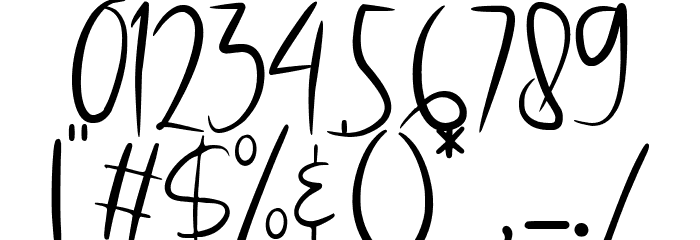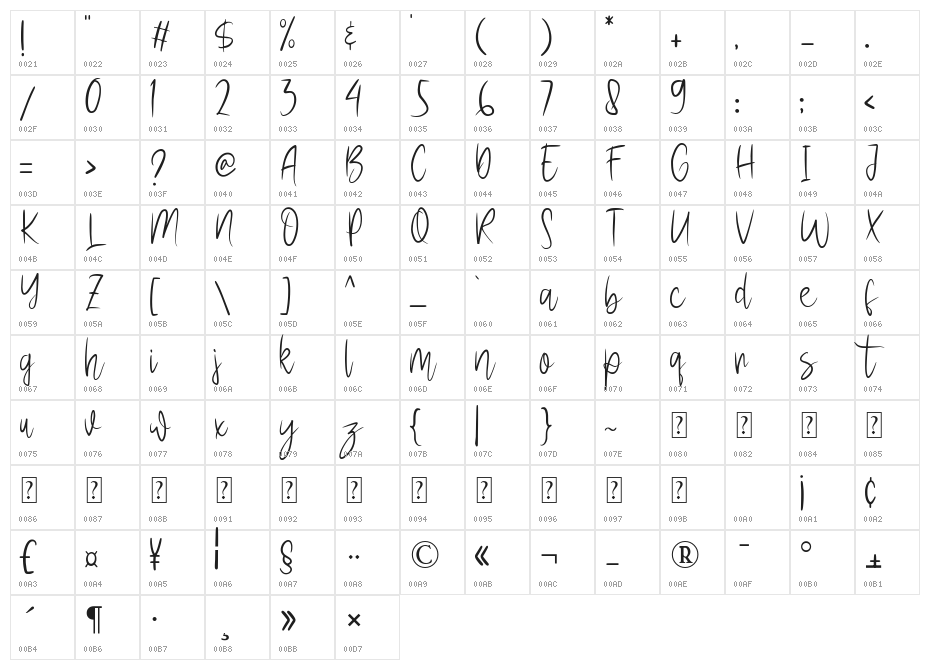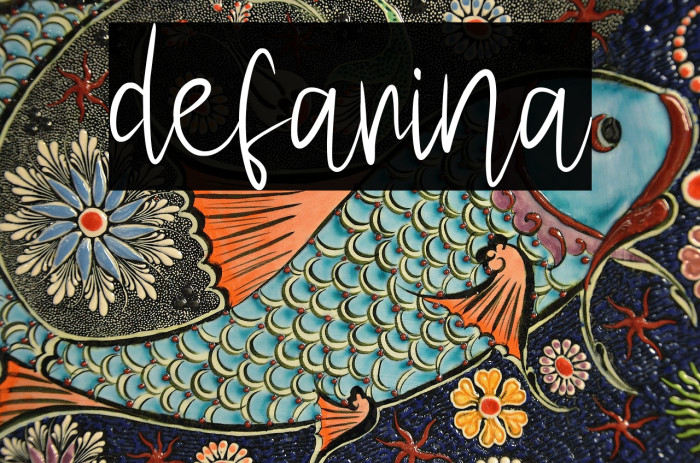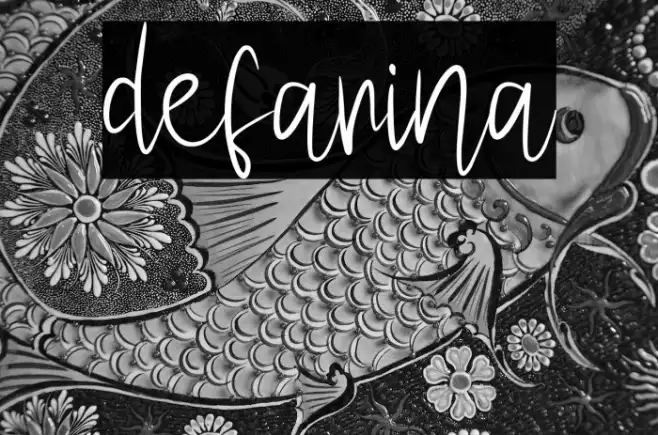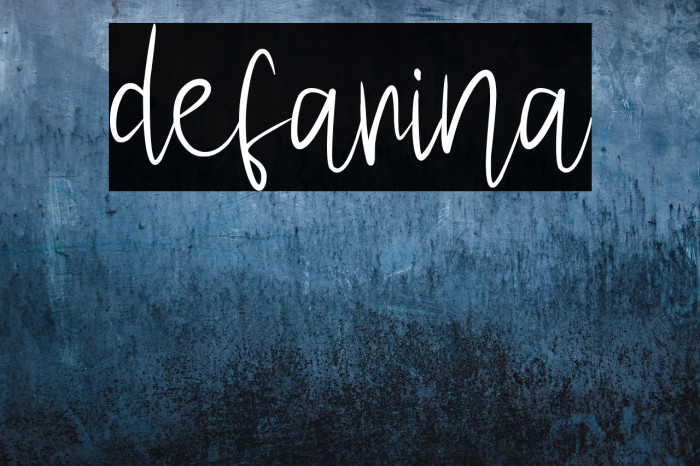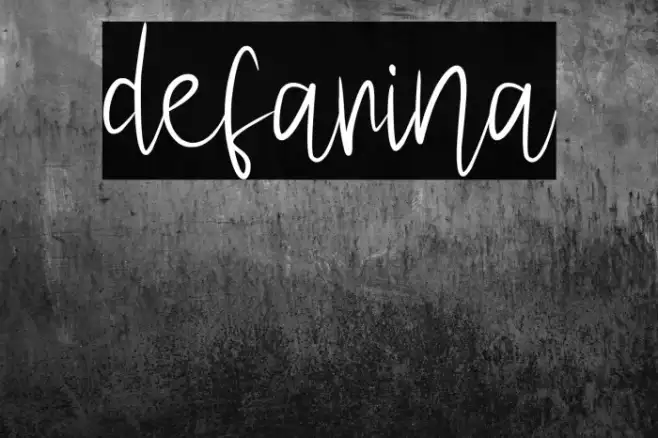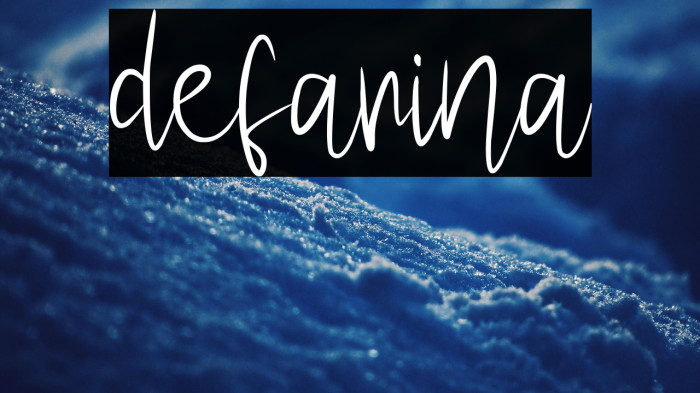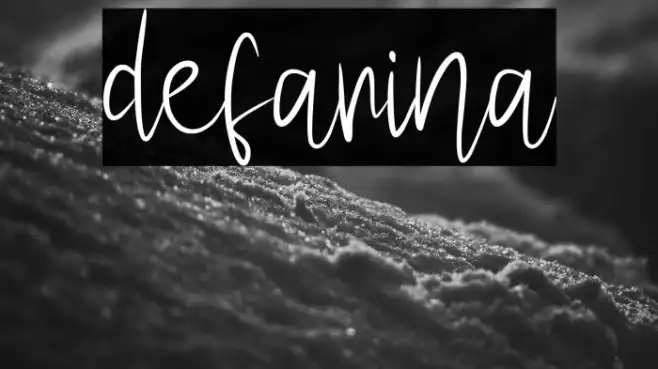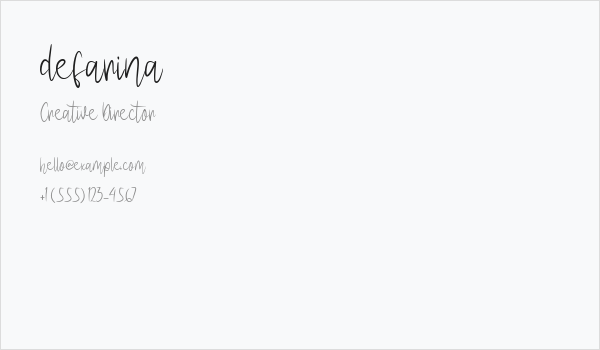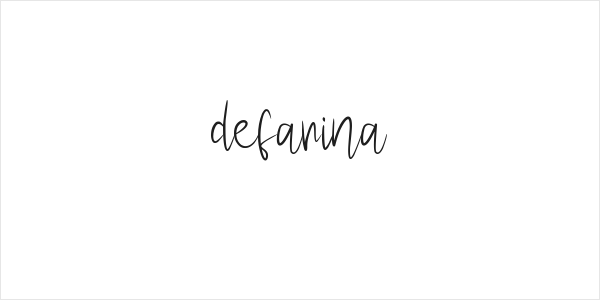
defarina Font
defarina Description
This font exhibits a lively and dynamic handwritten style, characterized by its fluid and organic strokes. The letters are elongated with a slight slant, giving it a casual yet elegant appearance. The uppercase letters are bold and expressive, while the lowercase letters maintain a consistent flow, enhancing readability. The numbers and special characters complement the overall aesthetic, maintaining the same playful and artistic vibe. This font is ideal for projects that require a personal touch, such as invitations, greeting cards, or creative branding.
Use CaseLogos, Headlines, Creative projects
Proposed ProjectsIdeal for invitations, greeting cards, personal branding, and creative projects.